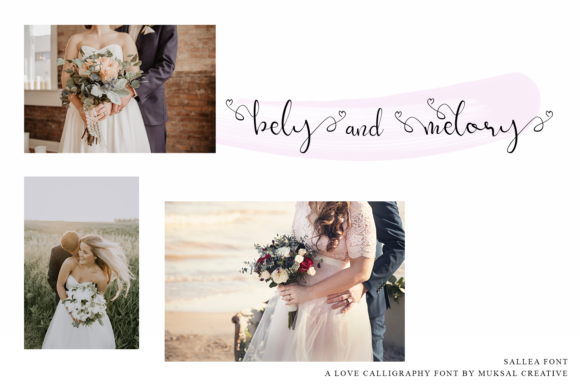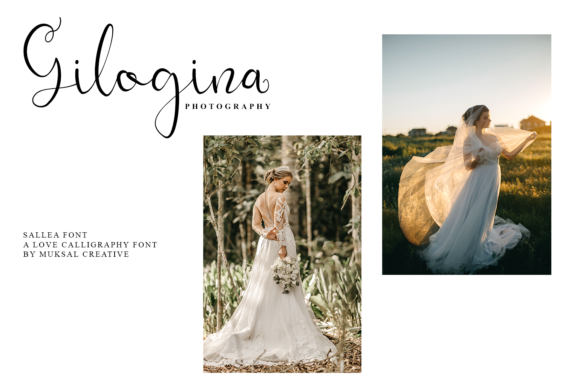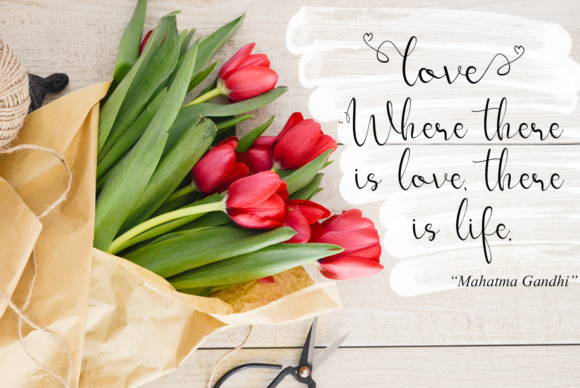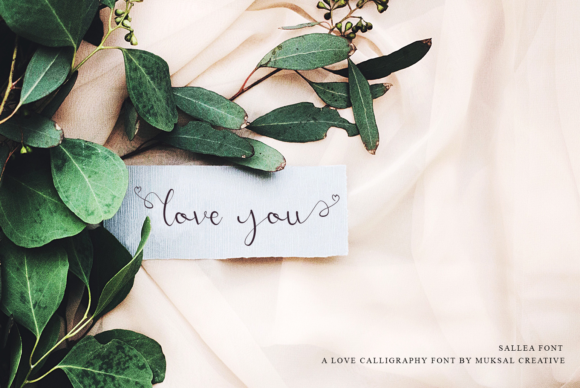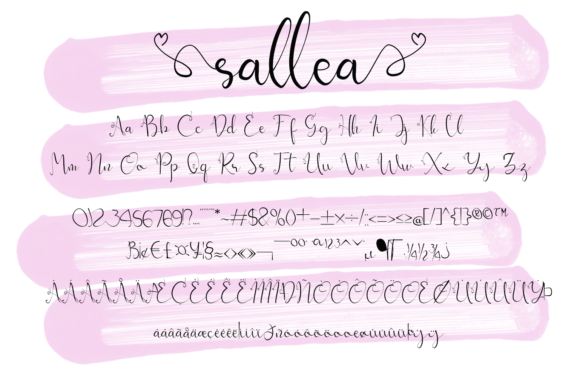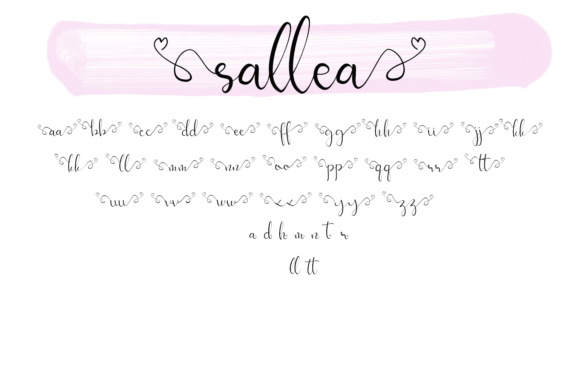
Introduction to Sallea Font Font
Fonts play a crucial role in design, and the Sallea Font font is a typeface that brings both character and versatility to any project. Whether you’re working on a branding project, a website, or a print design, the Sallea Font font offers a unique style that can elevate your work.
Sallea is a sweet, soft hand-lettered script.
The playful rounded characters make it the perfect font for creating stunning crafts Sallea comes packed with gorgeous swashes, that will allow you to add a decorative touch within seconds.
Key Features of Sallea Font Font
Why Choose Sallea Font Font?
The Sallea Font font is more than just a typeface – it’s a design tool that helps you communicate your message with style and clarity. Its unique character set and versatile design make it suitable for a wide range of applications, from elegant invitations to bold headlines.
With its carefully crafted letterforms and balanced proportions, the Sallea Font font ensures readability and visual appeal across all mediums.
What makes Sallea Font font special?
The Sallea Font font stands out with its unique design, exceptional readability, and versatility across various design applications.